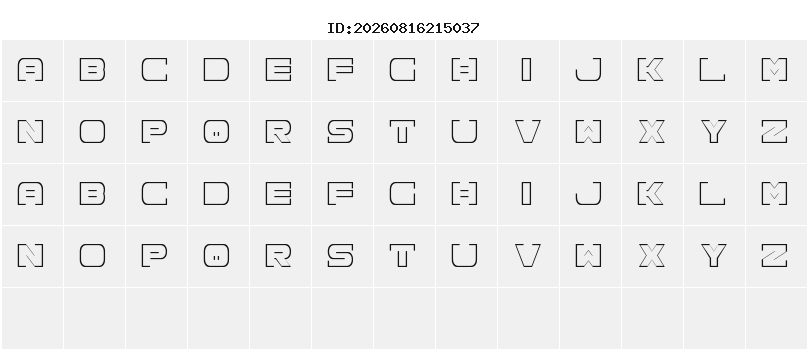
Spac3 neon Preview
• Font Name: Spac3 neon
• Font ID: Spac3 neon:Version 1.00
• Full Font Name: Spac3 neon
• Version: Version 1.00 November 19, 2011, initial release
• PostScript Name: Spac3neon
• Designer: Carlos Matteoli
About Spac3 neon.ttf
Spac3 neon.ttf is a modern, elegant sans-serif font designed for ultimate readability and visual harmony. Perfect for branding, headlines, web design, and print materials.